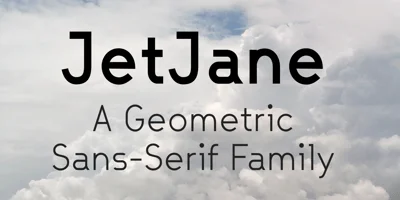
Jet Jane Font is perfect for aviation industry branding, aerospace technology campaigns, female empowerment movements, speed-focused marketing, adventure travel promotions, high-tech startup identity, dynamic sports graphics, fast-paced lifestyle brands, velocity-driven designs, and powerful applications that celebrate breakthrough achievements and unstoppable momentum in modern professional environments.
What makes Jet Jane Font truly exciting is its dynamic fusion of aeronautical precision and feminine strength that captures the spirit of breaking barriers and achieving excellence at supersonic speeds. This exceptional typeface embodies the essence of aviation innovation with its streamlined letterforms and high-velocity character that convey both technical expertise and pioneering determination. The font's jet-powered personality and breakthrough energy make it perfect for brands seeking to communicate speed, innovation, and the inspirational power of achieving ambitious goals through skill, determination, and fearless pursuit of excellence.
The Jet Jane Font family includes multiple weights and styles: Light, Regular, Medium, Bold, and Supersonic variations designed for maximum velocity impact. Each family member maintains the distinctive aeronautical character while offering flexibility for diverse high-speed applications and dynamic branding systems. The comprehensive character set supports aviation typography needs and speed-focused design elements, making it suitable for international aerospace communications.
When you choose Jet Jane Font, you're selecting a typography rocket that delivers breakthrough performance and supersonic communication excellence. This dynamic typeface excels in applications where speed and innovation are essential thrust elements, delivering exceptional velocity while maintaining aviation authenticity. Whether you're designing aerospace brands, technology campaigns, empowerment movements, or high-speed marketing materials, this font provides the jet-powered excellence and breakthrough energy that resonates with ambitious professionals who appreciate cutting-edge innovation, barrier-breaking achievements, and the exhilarating momentum of reaching new heights through determination and skill.